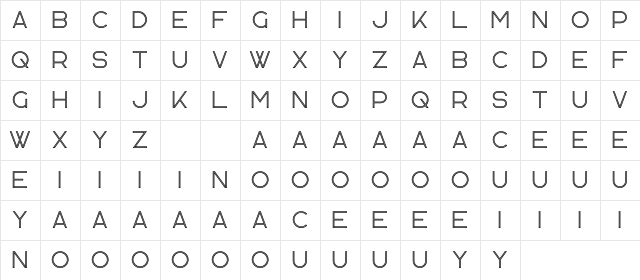
Kavo is built around its visual character rather than neutral utility - its distinctive forms are designed to make an impression at display sizes.
Font Pairing: Pair with a clean neutral sans-serif for body copy to let Kavo's character lead without overwhelming the composition.
Pro Tip: Use Kavo exclusively at display sizes - it was designed to be seen, not read at length. Let a neutral companion handle body copy.